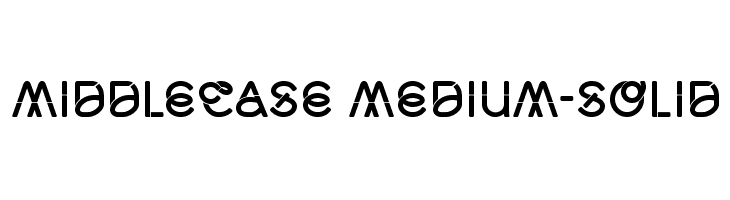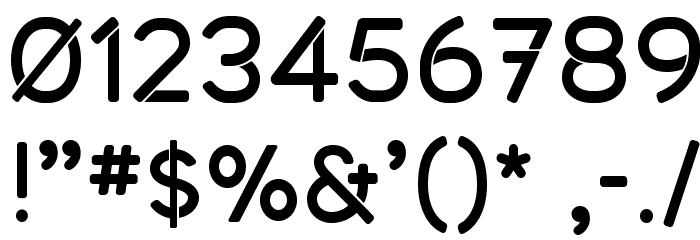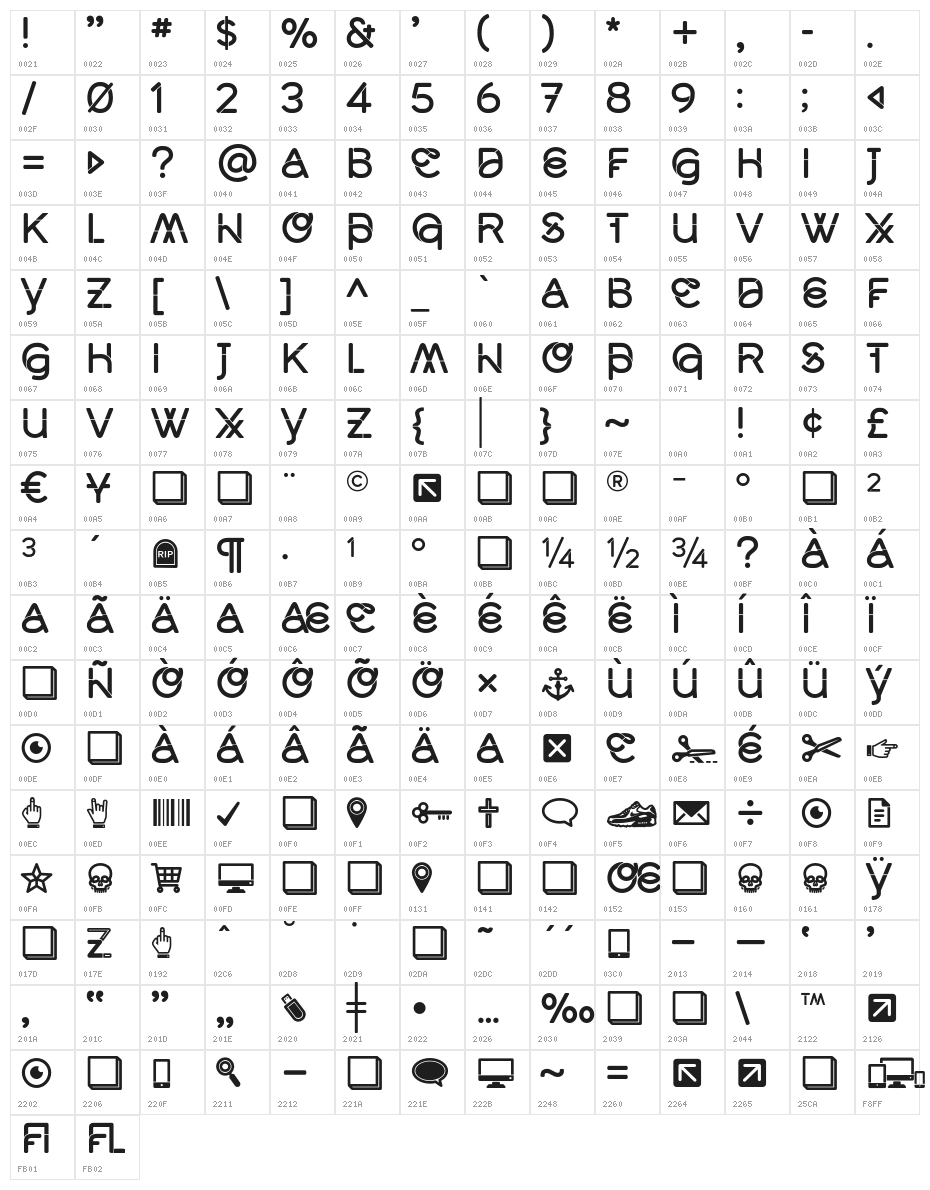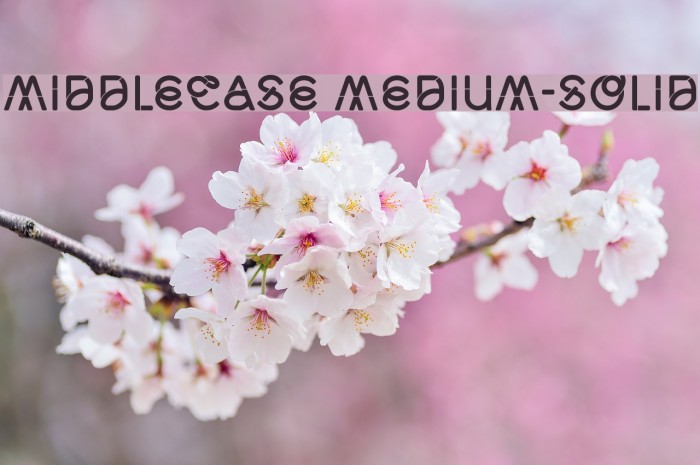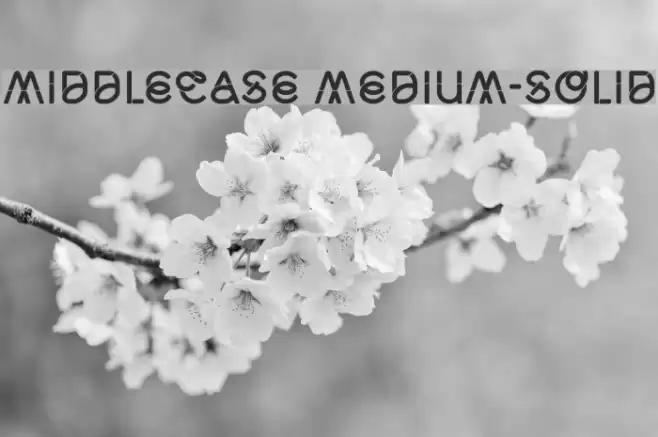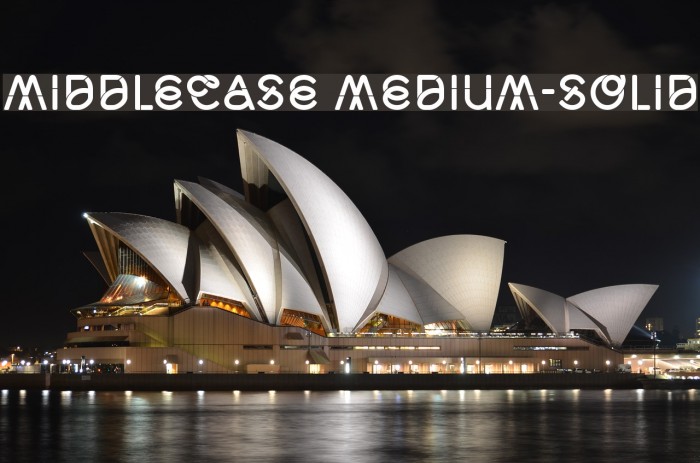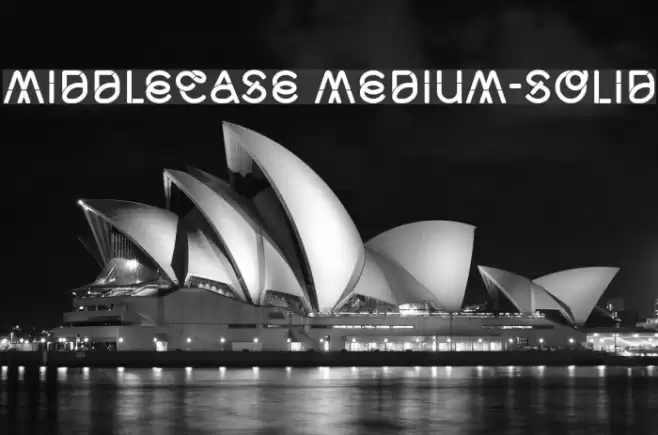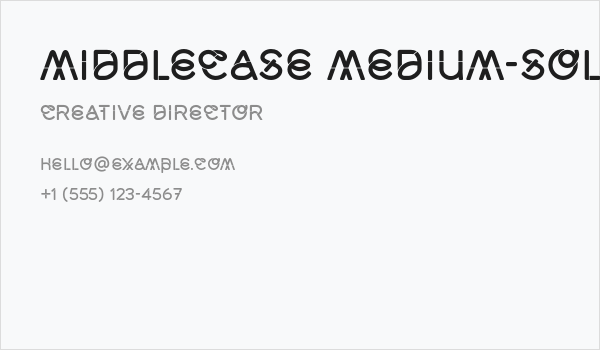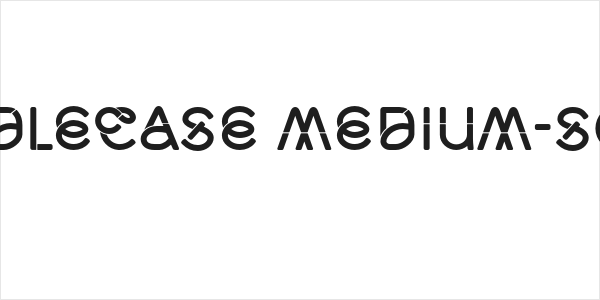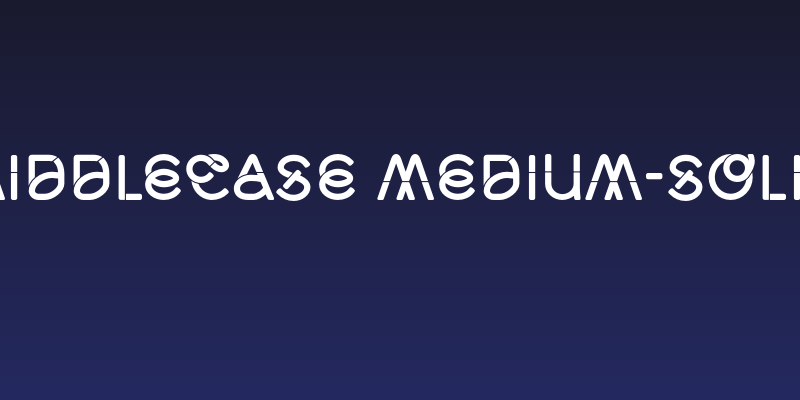
Middlecase Medium-Solid Font
Middlecase Medium-Solid Description
This font exhibits a bold and modern design with a unique geometric style. The characters are constructed with a combination of straight lines and curves, creating a futuristic and innovative appearance. The uppercase and lowercase letters maintain a consistent width, contributing to a uniform and balanced look. The numbers and special characters follow the same design principles, ensuring cohesion across all glyphs. The font's distinctiveness lies in its ability to convey a sense of modernity and creativity, making it suitable for projects that aim to stand out.
| Proposed Projects | Ideal for branding, advertising, and digital media projects that require a modern and eye-catching typeface. |